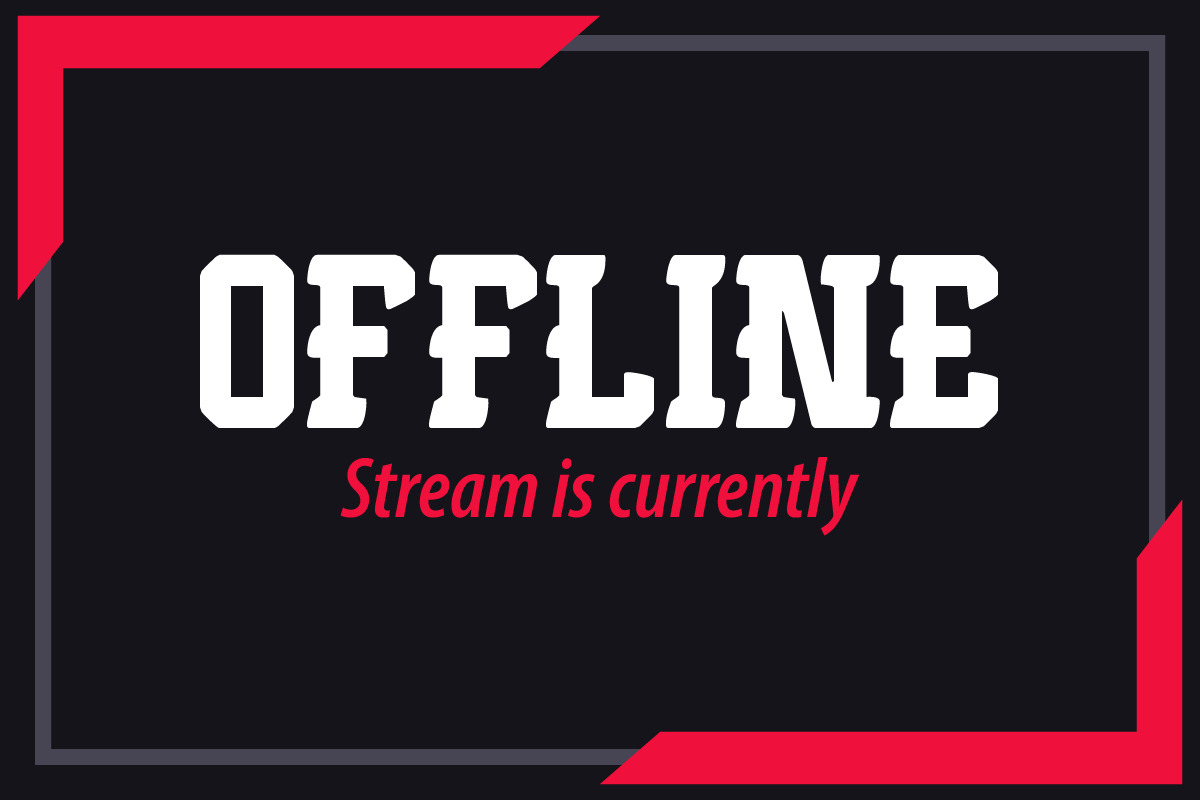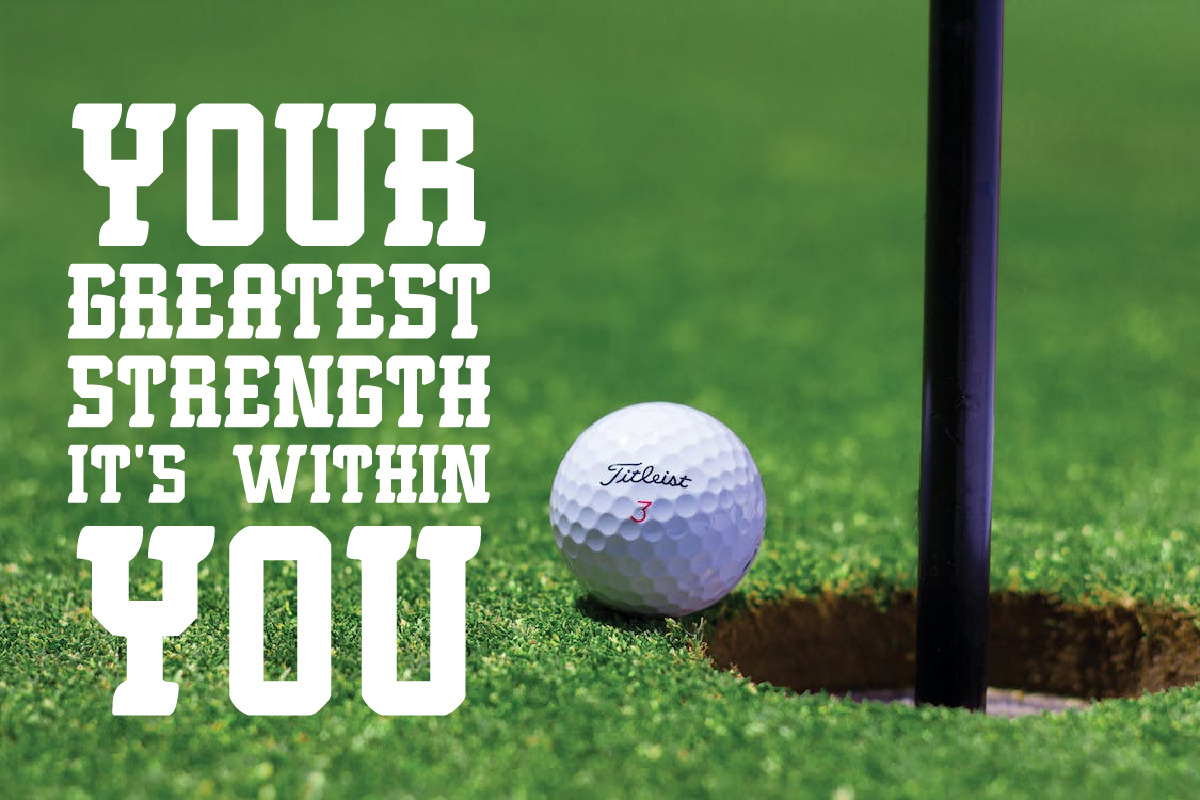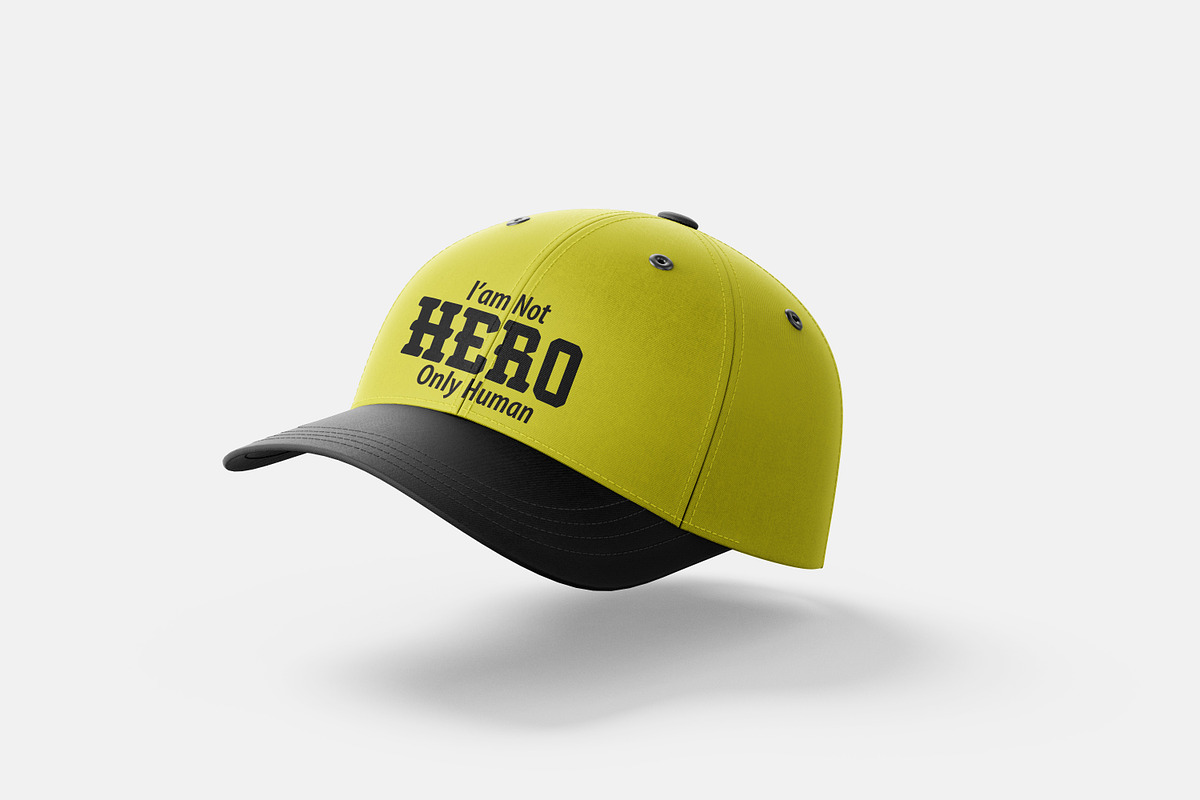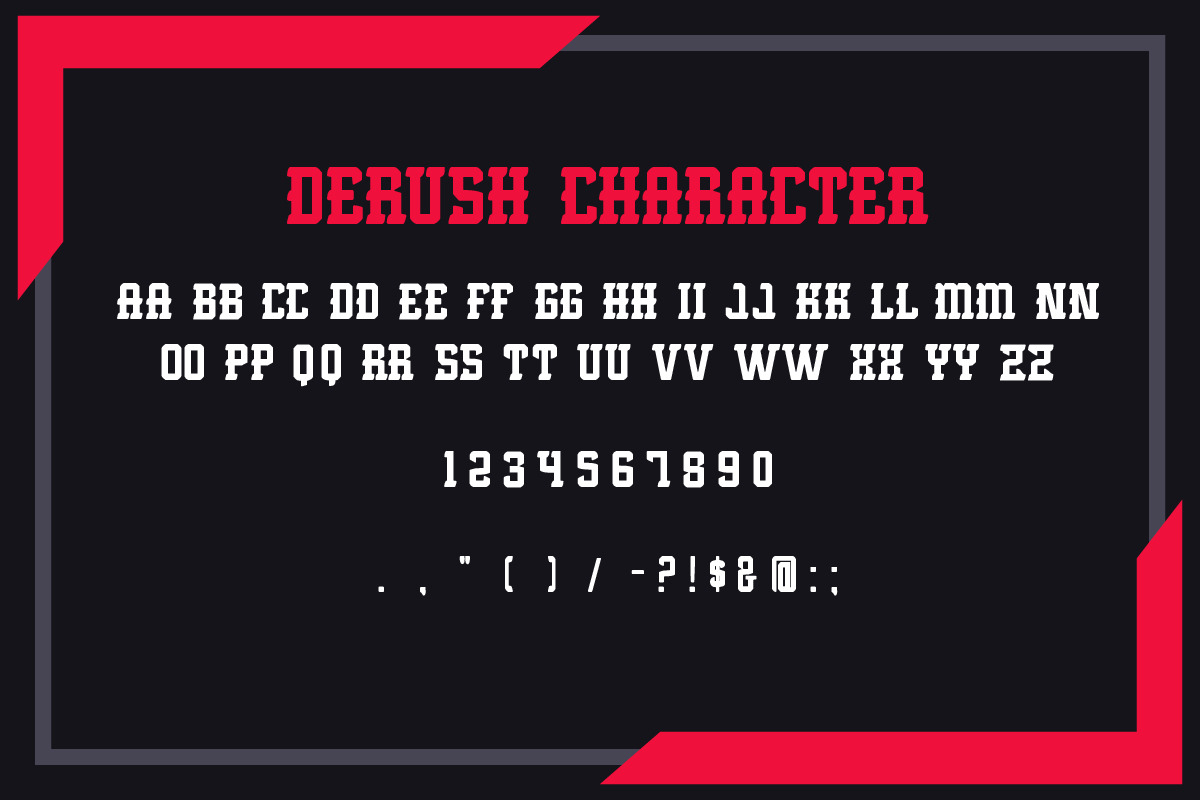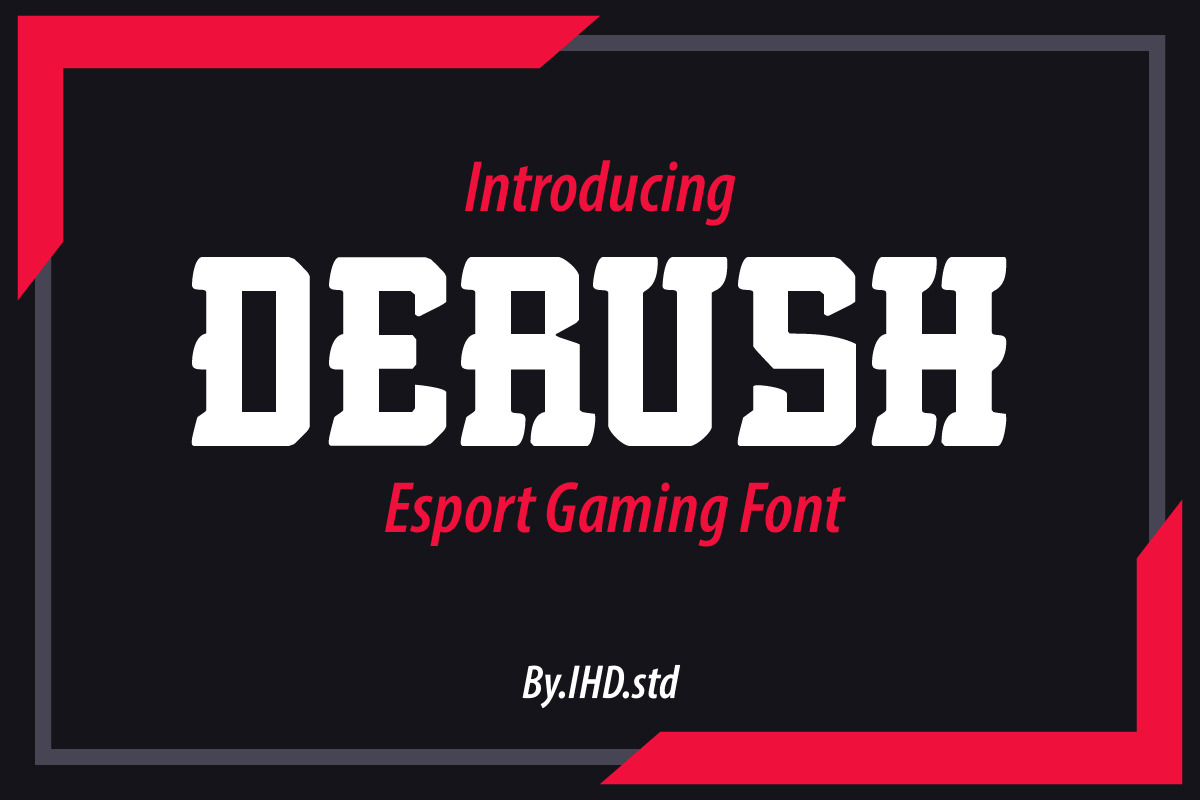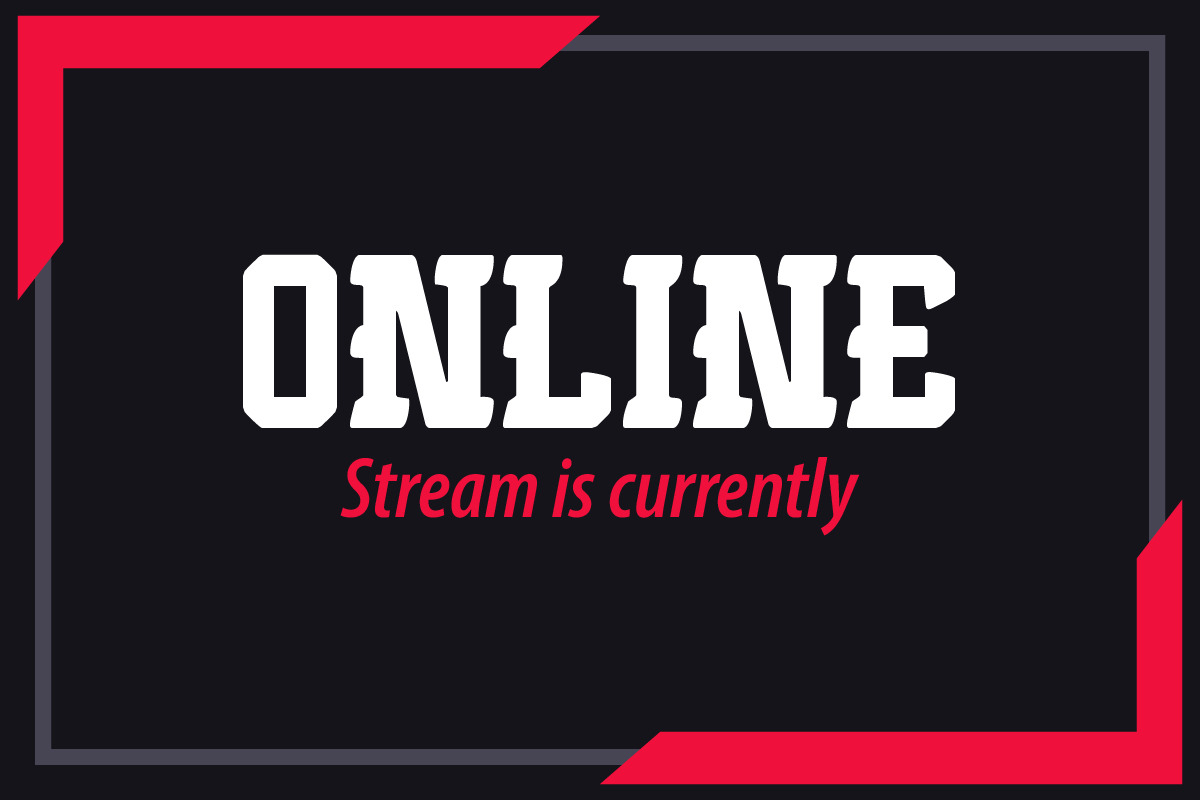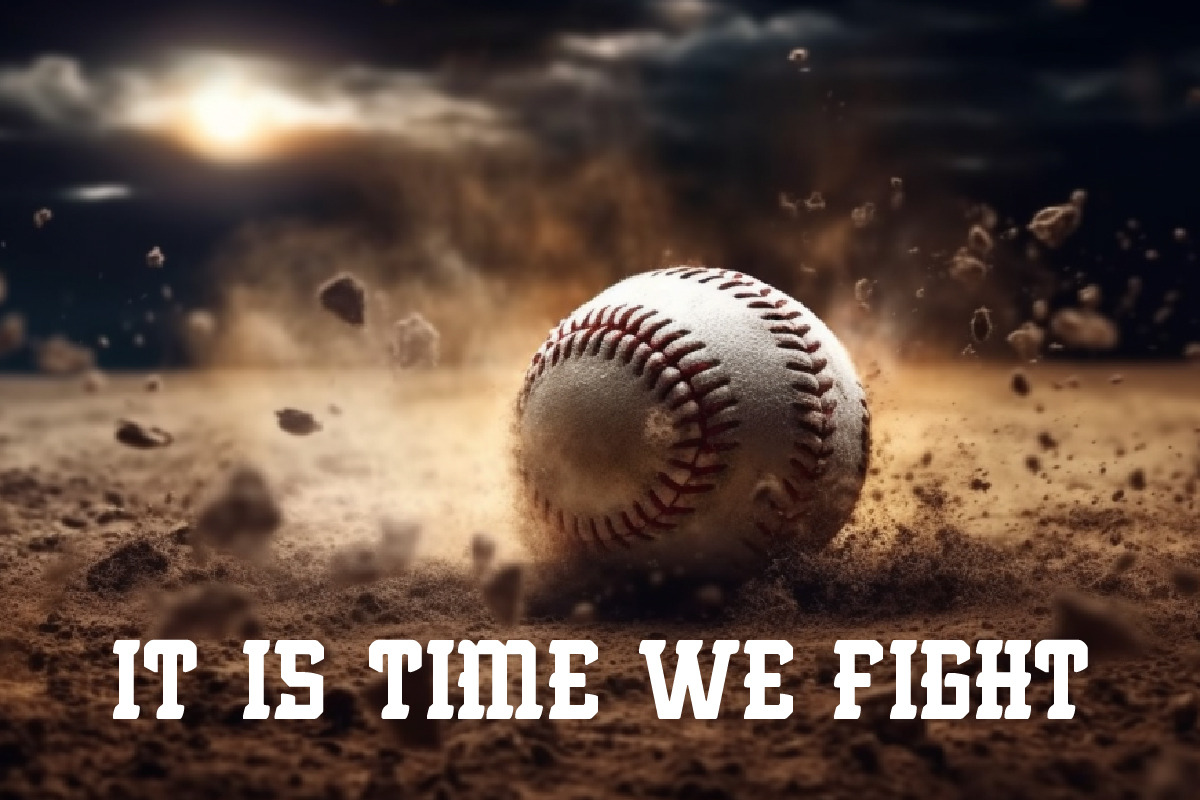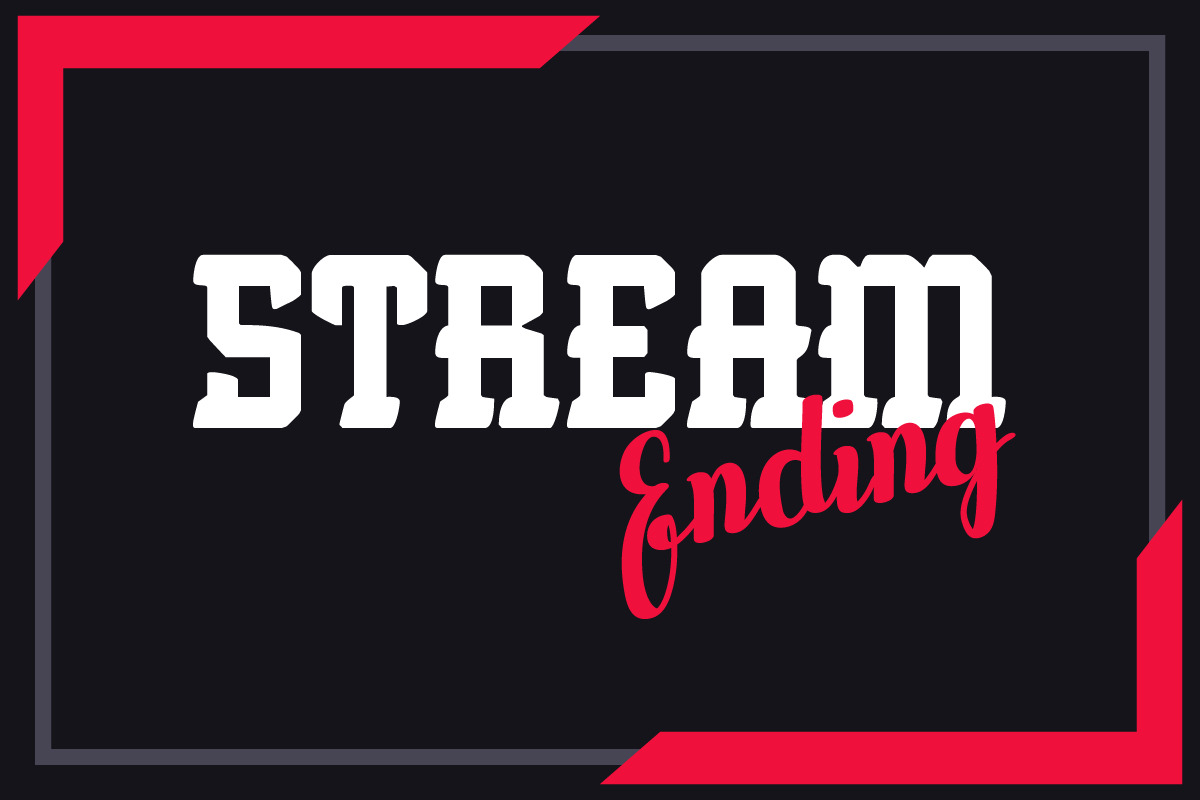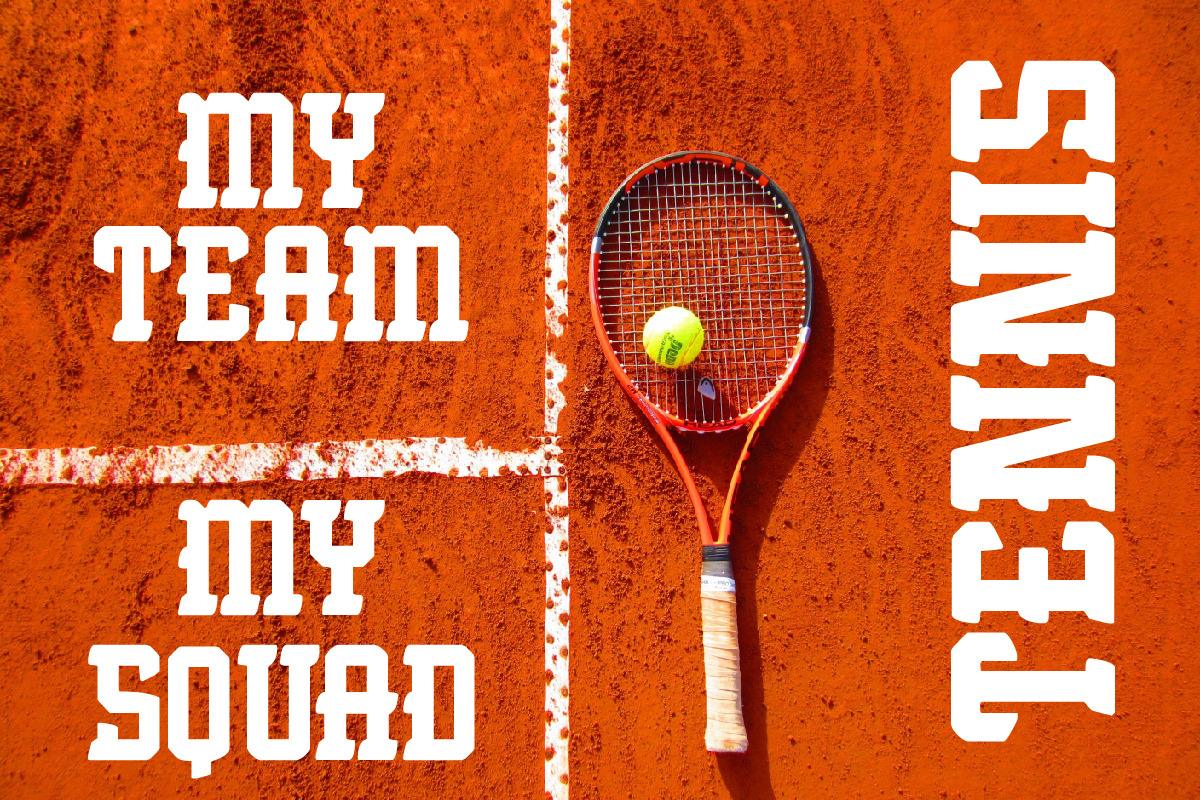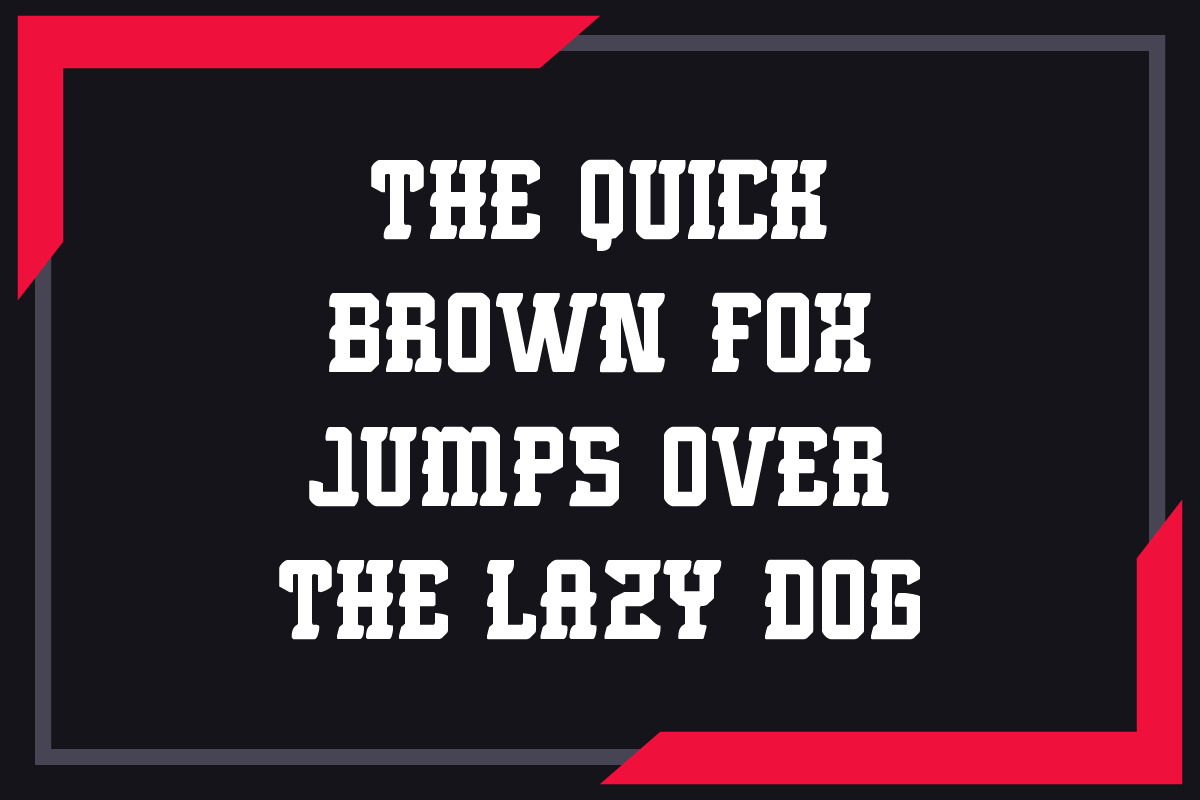
Derush Esport Gaming Font
Derush Esport Font is perfect for most all aspects of graphic design, from creating a unique display layout, a quirky logo design and even long-form content. Download now and go get adventurous!